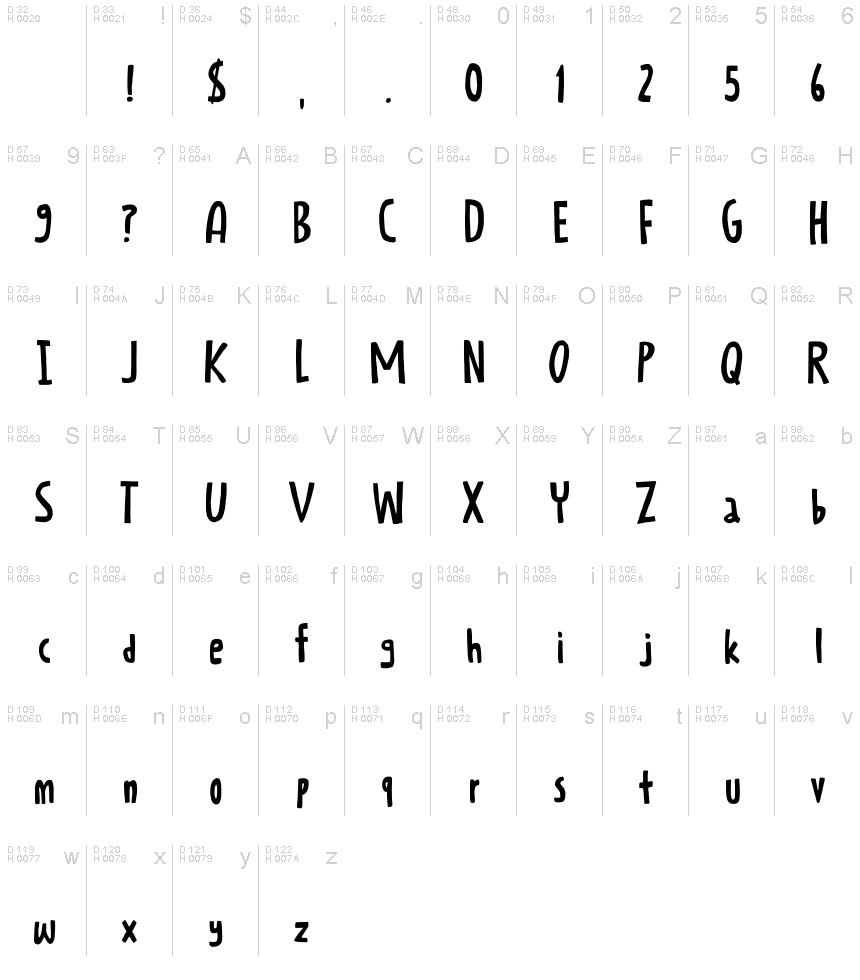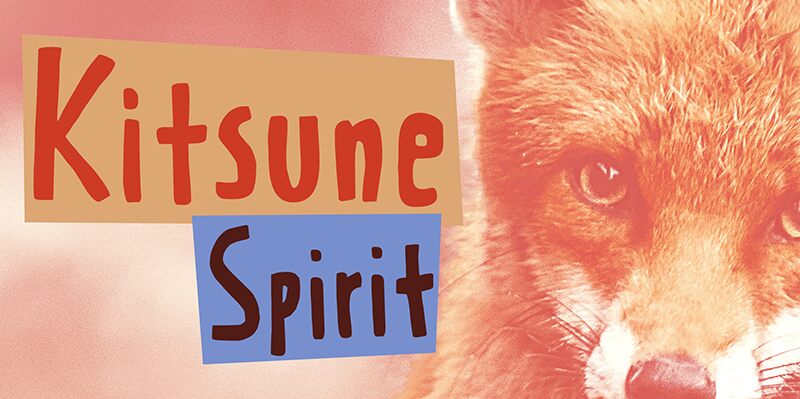
Kitsune Spirit DEMO Regular
Kitsune Spirit font, crafted by Hanoded, is a captivating display typeface with a charming comic style and distinctly condensed width. This free font exudes a playful and whimsical essence, perfect for projects that seek to capture attention with a touch of fun and creativity. Ideal for comics, children's books, or whimsical branding initiatives, Kitsune Spirit adds character and personality to any text.
Its unique design ensures readability while maintaining an artistic flair. For those in search of an engaging font to download for free use in imaginative projects, Kitsune Spirit offers both functionality and stylistic appeal.